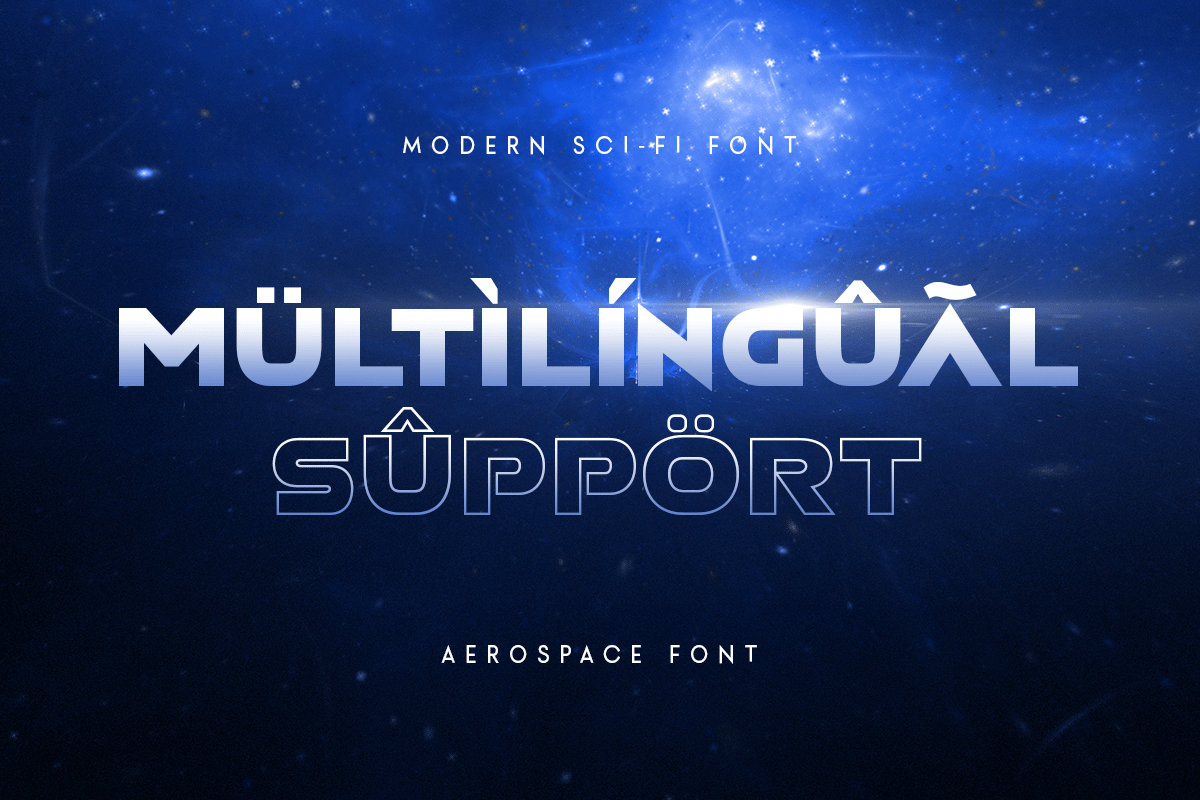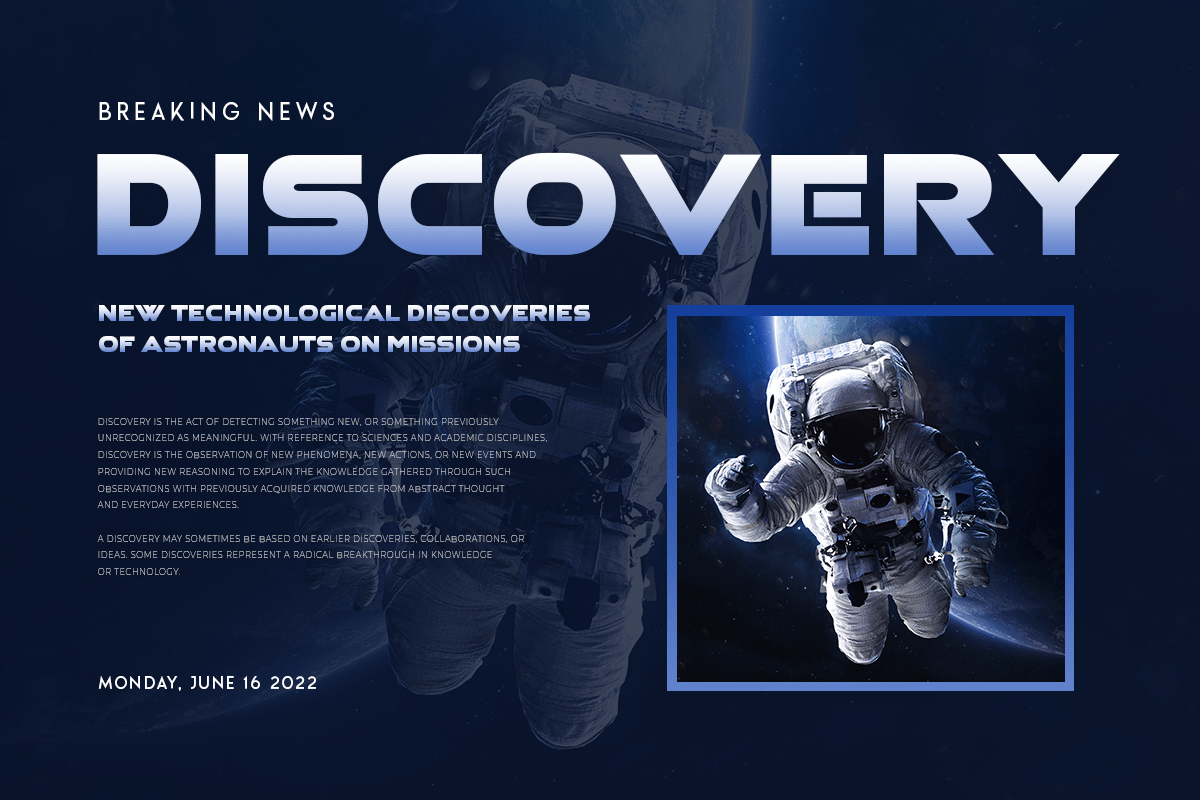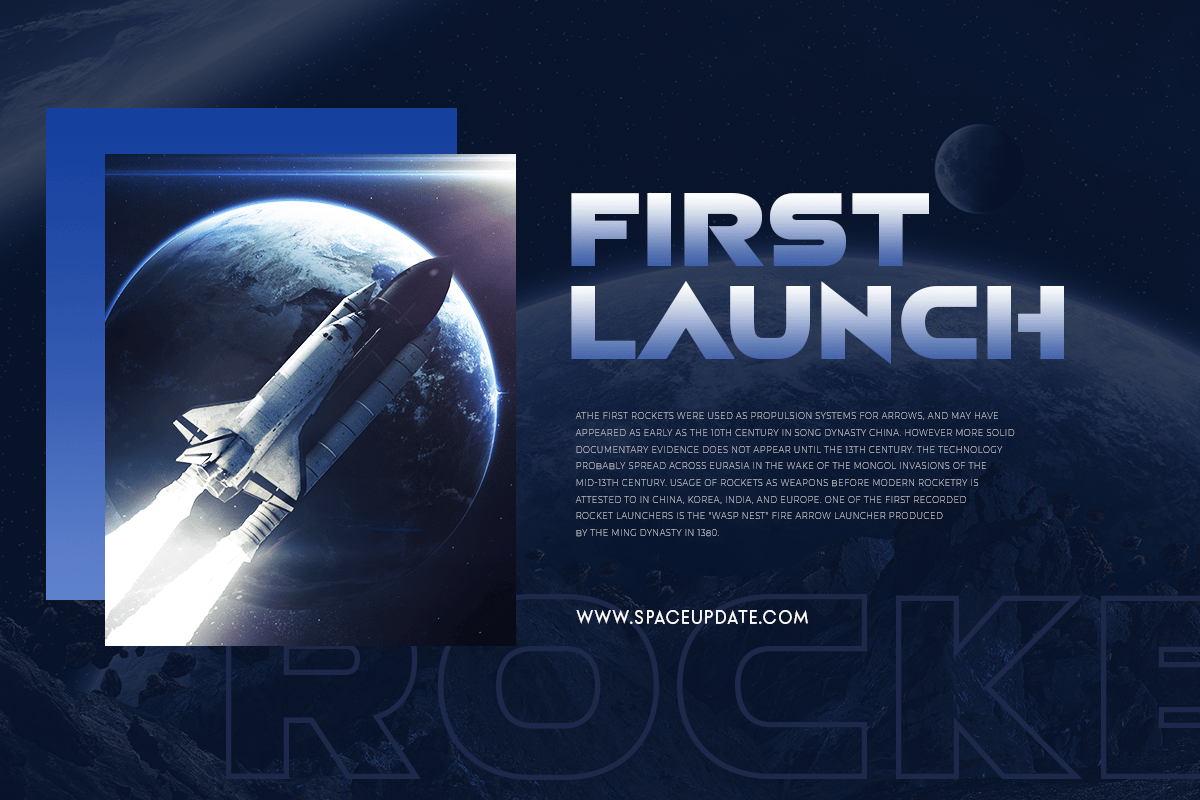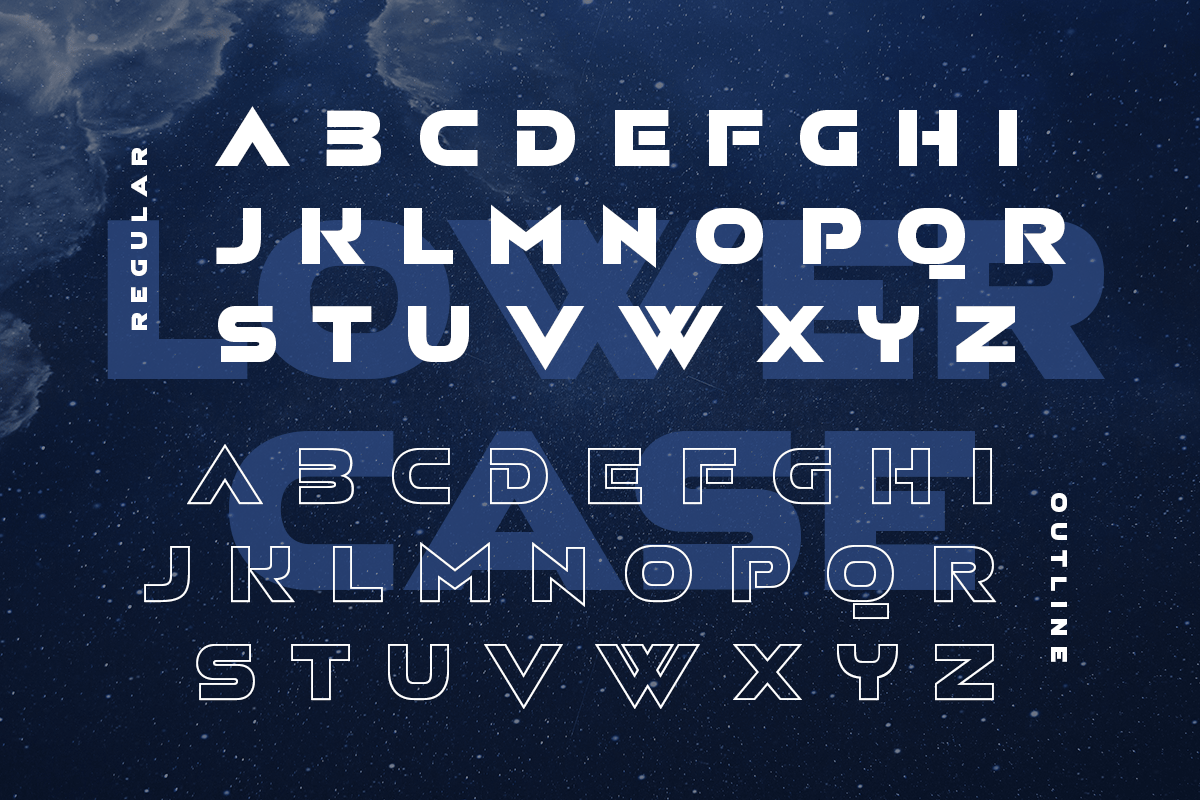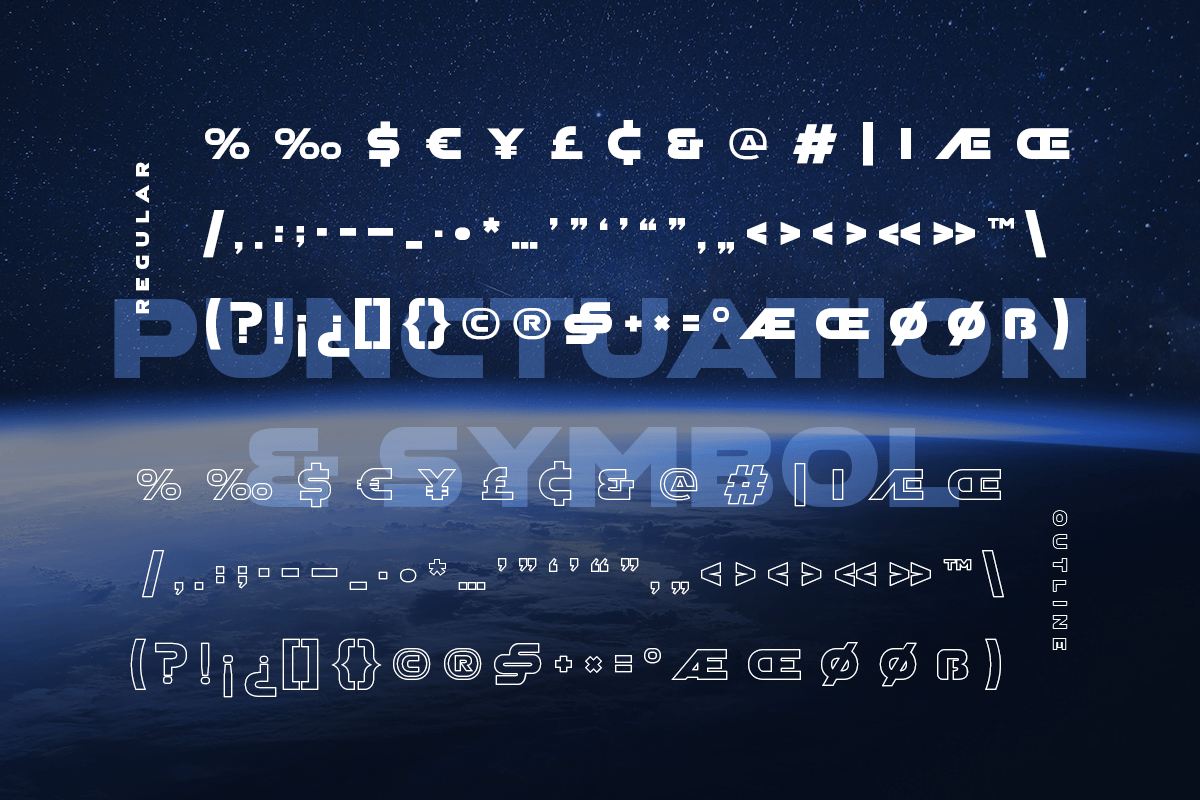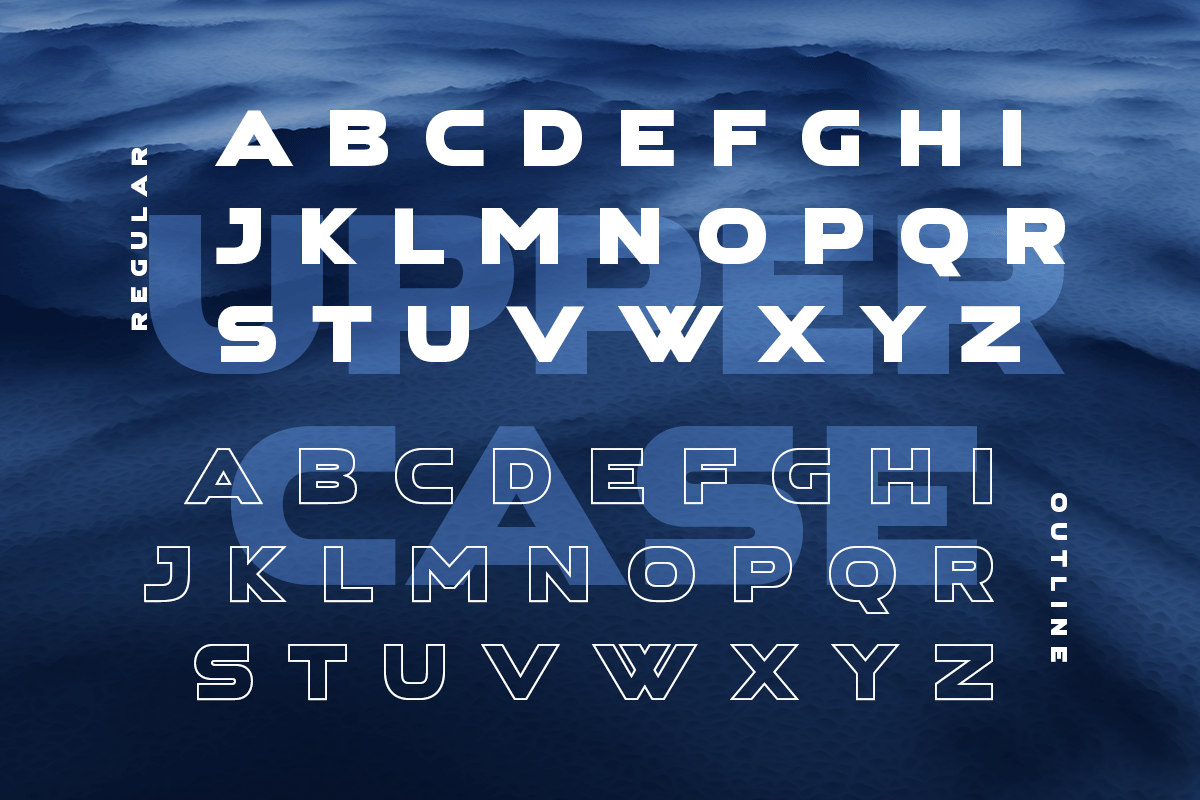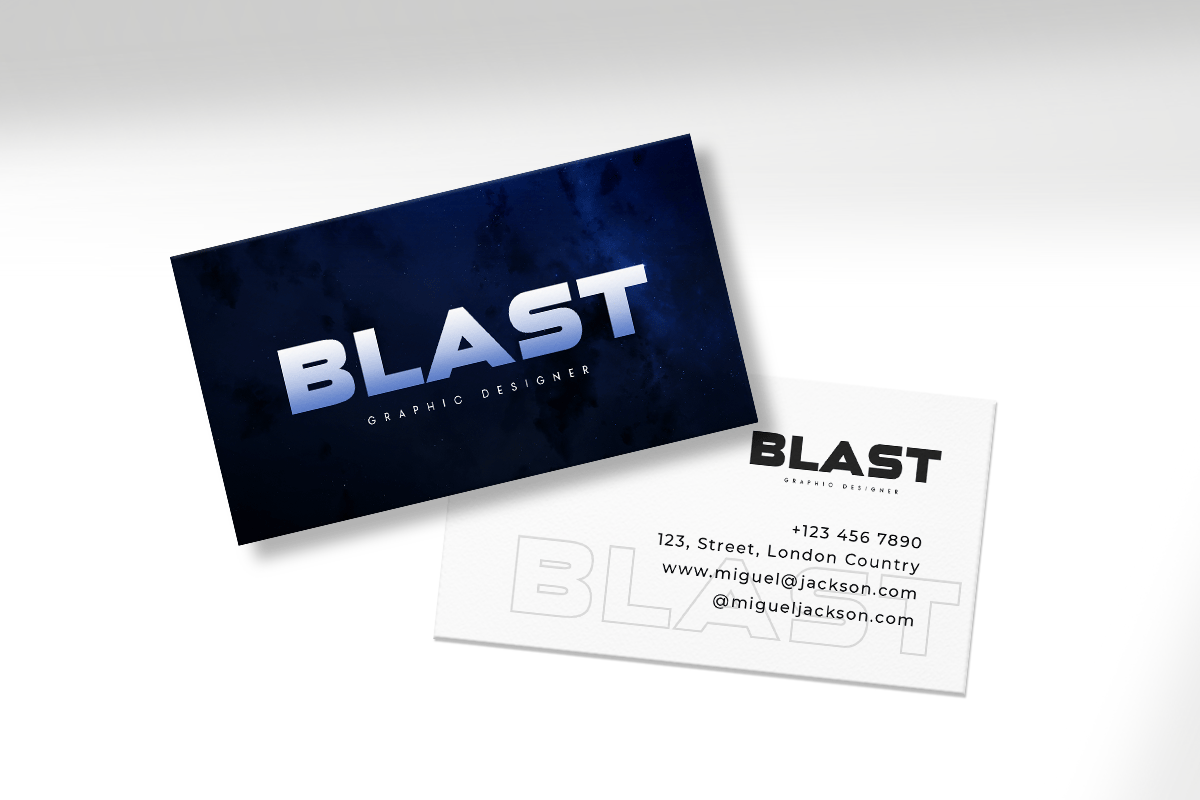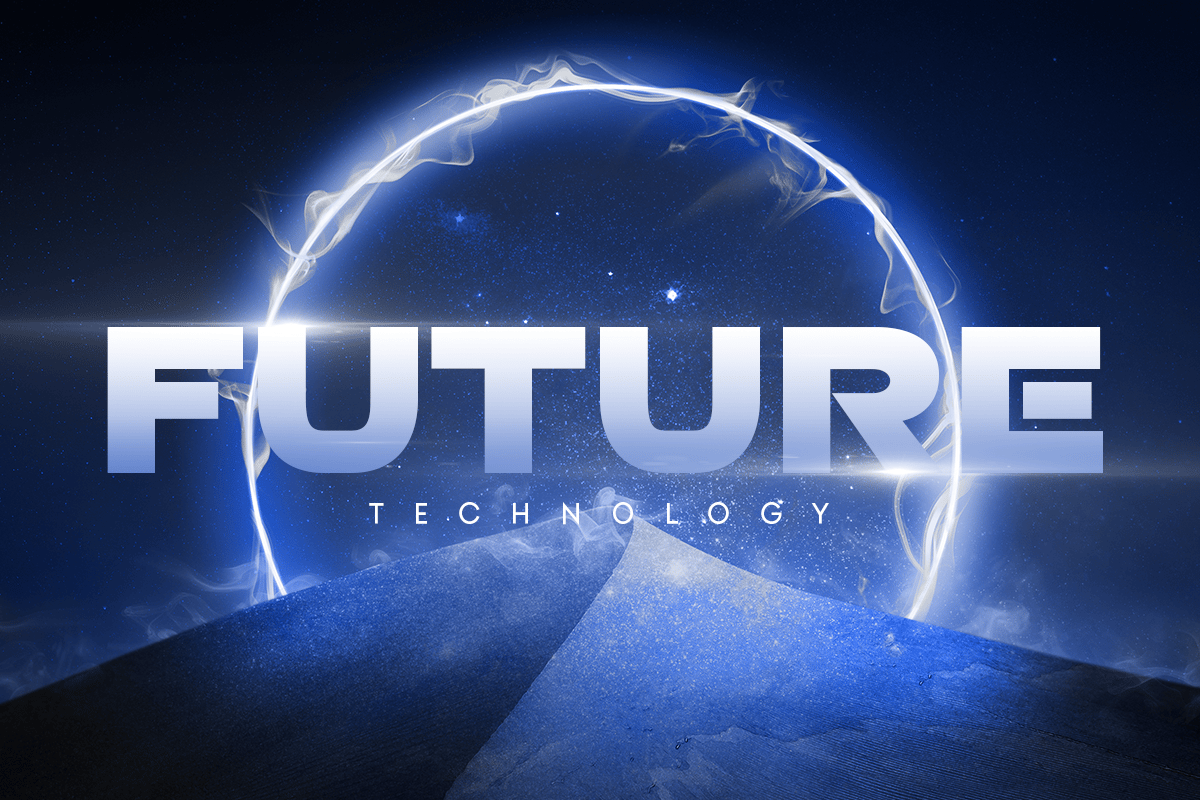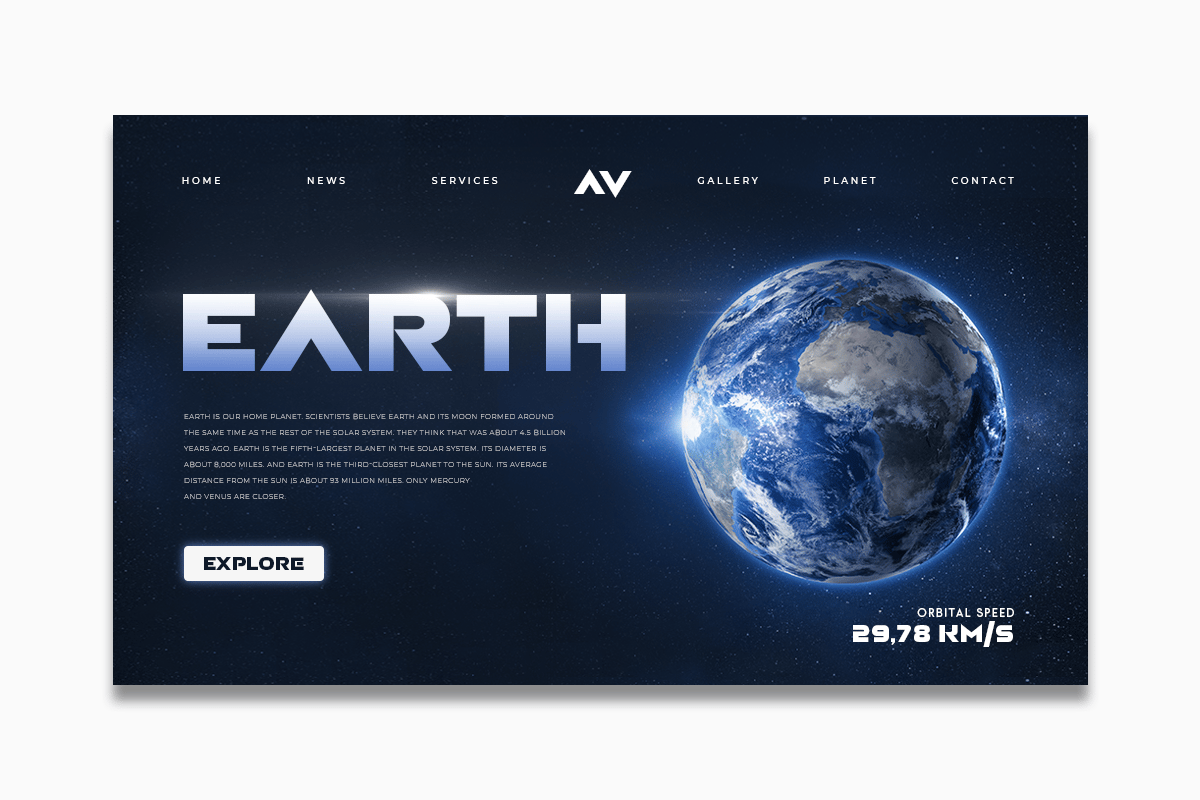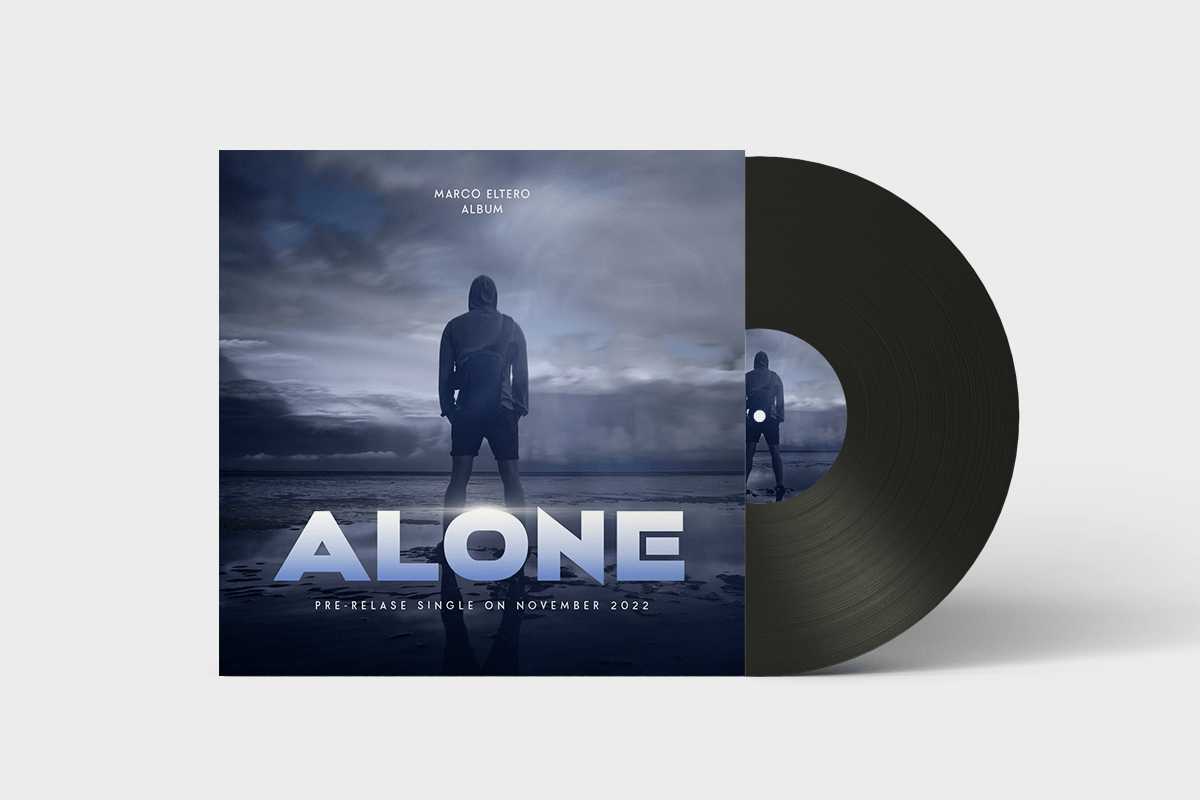
Aerospace – Modern Sci-fi Font
Aerospace is a Modern Sci-fi font that created special for Technology, Sci-fi, modern and more stand out typography needs, with extra alternative styles that make your design more memorable. It’s so perfect to add your style and headline overview for future, technology, actions, and technology theme. And specially for this font, we crafted for bold action style and modern feels so enjoy to create any project that will show your main idea out.
Aerospace Modern Sci-fi font ready with:
- Modern Font variation characters prepared to get creative
- Preview as a inspirations that you can do
- Ready with All Uppercase characters